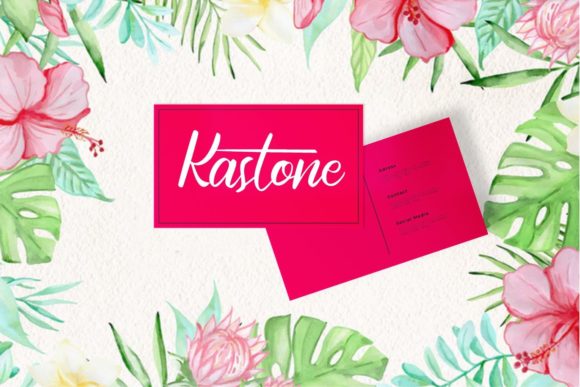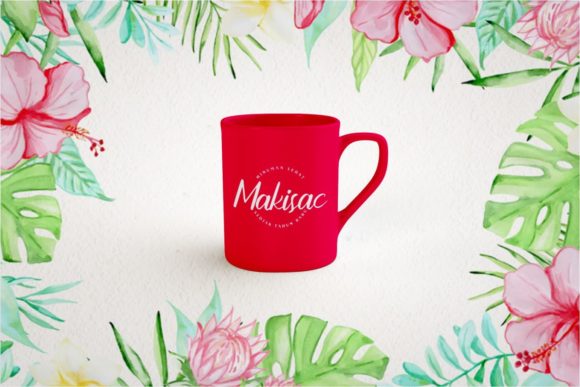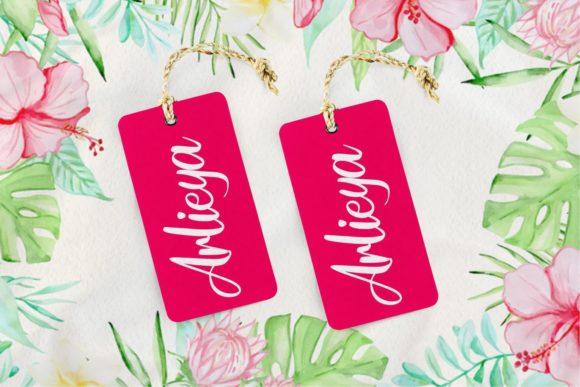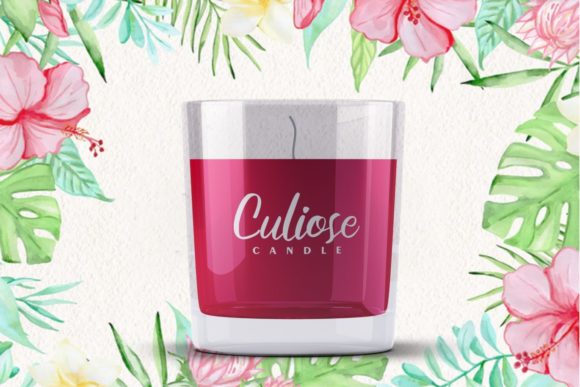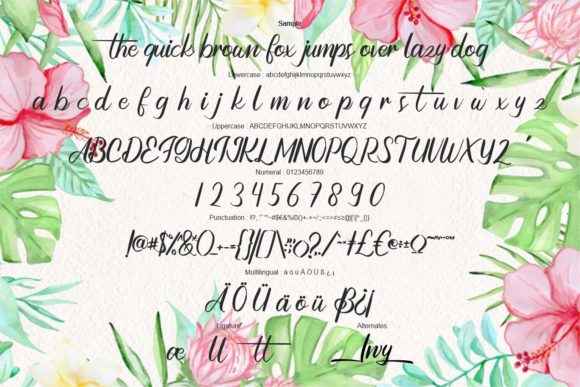
The Perfect Blend of Authenticity and Style: Discover the Baliyan Font
As creatives, we’ve all been there – staring at a blank canvas, trying to come up with the perfect idea. But what if I told you that there’s a secret ingredient that can take your design project from ordinary to extraordinary? For me, it’s the Baliyan Font, a bold and beautiful handwritten font that effortlessly captures the essence of authentic style.
Whether you’re a graphic designer, a typography enthusiast, or simply someone who appreciates the beauty of well-crafted fonts, the Baliyan Font is a game-changer. Its unique feel and style make it the perfect addition to any design project, elevating it to new heights of sophistication and elegance. With the Baliyan Font, you’ll be able to create stunning visual effects that leave a lasting impression on your audience.
- Unique Characteristics: The font features a unique blend of traditional and modern elements, with intricate details and ornate designs that add an exotic touch to any text.
Baliyan Font Review
As a designer, I’ve had the chance to work with Baliyan Font, and I must say it’s a unique and interesting font. Here’s my honest review:
- Unique and exotic feel: Baliyan Font has a distinctive aesthetic that’s perfect for adding a touch of cultural flair to your designs.
- Legibility: Despite its ornate appearance, the font is surprisingly legible, making it suitable for body text and even headlines.
- Variety of styles: The font comes in multiple weights and styles, offering a range of options for different design needs.
- Limited language support: Baliyan Font may not support all languages, which could be a limitation for international designs.
- Not suitable for small text: Due to its intricate design, Baliyan Font may not be the best choice for small text or body copy.
- May not be accessible: The font’s ornate design may not be accessible for users with visual impairments.
Overall, I think Baliyan Font is a great choice for designers looking to add a touch of cultural flair to their work. While it may have some limitations, its unique feel and legibility make it a solid option for the right projects.
The Baliyan font is a elegant and sophisticated script font, making it perfect for:
- Editorials and magazine layouts.
Alternatives to Baliyan Font for Designers
Playfair Display is an elegant, high-end serif font ideal for luxury branding, fashion, and high-end publications. It features intricate details and ornate flourishes, making it perfect for creating a sophisticated and refined atmosphere.
Comparison to Baliyan Font: While Baliyan Font has a more traditional and rustic feel, Playfair Display exudes luxury and sophistication. Playfair Display is better suited for high-end designs, whereas Baliyan Font is more versatile and can be used in a variety of contexts.
Great Vibes is a modern, elegant script font perfect for creative projects, weddings, and invitations. It features a flowing, cursive design that adds a touch of sophistication and elegance to any design.
Comparison to Baliyan Font: Great Vibes has a more modern and flowing feel compared to Baliyan Font’s traditional and rustic design. While Baliyan Font is more versatile, Great Vibes is better suited for creative projects that require a touch of elegance and sophistication.
Carolyna Pro is a modern, elegant script font perfect for fashion, beauty, and luxury branding. It features a flowing, cursive design with a touch of sophistication and elegance, making it ideal for creating a refined and high-end atmosphere.